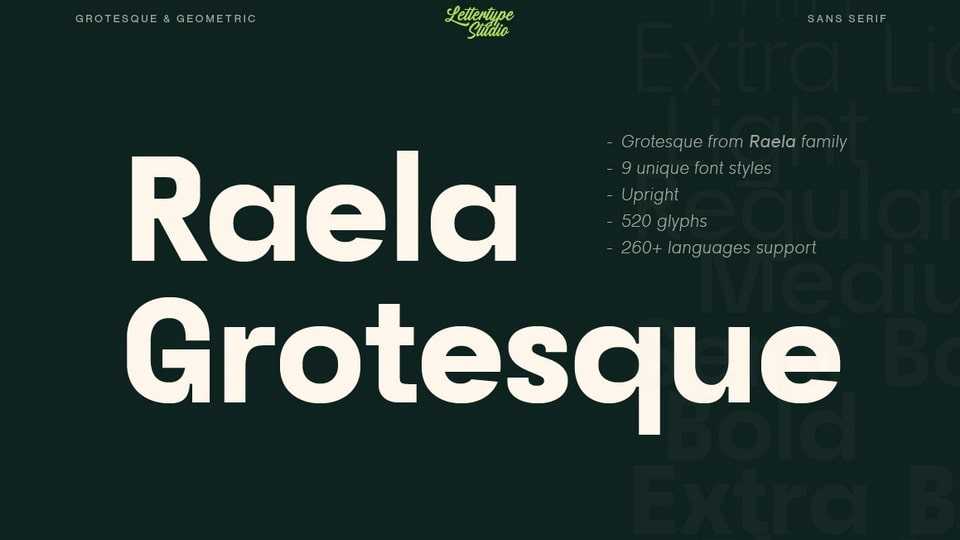
Download Raela Grotesque font, a sans serif typeface that seamlessly blends geometric shapes’ clean, modern elegance with the timeless appeal of Grotesque design principles.
Designer: Lettertype Studio